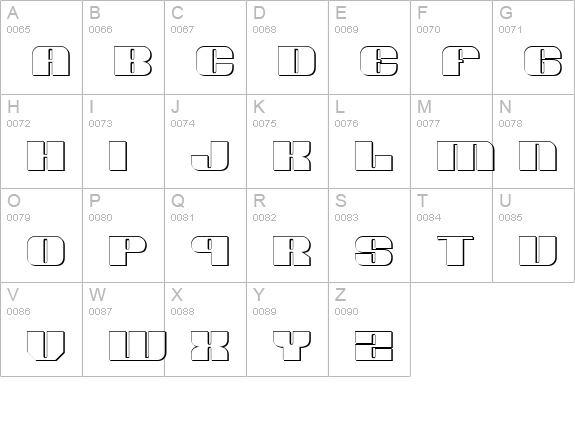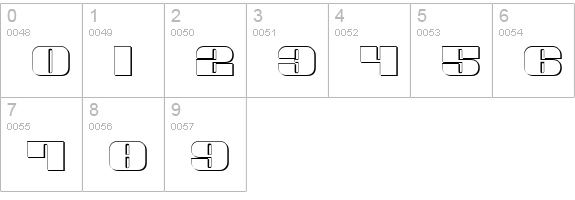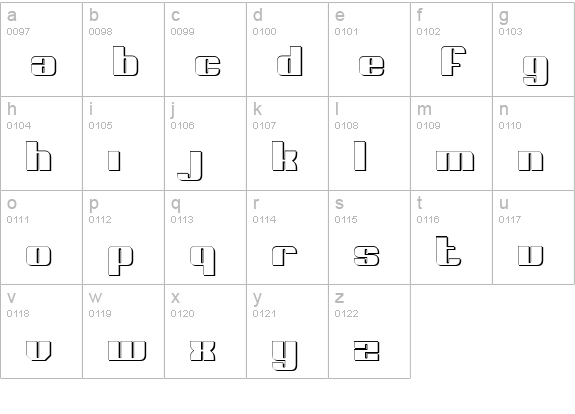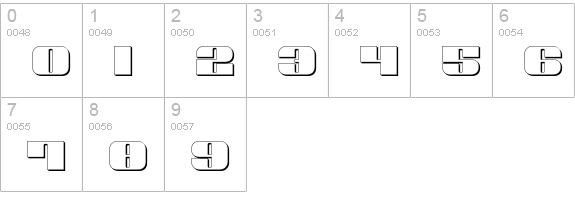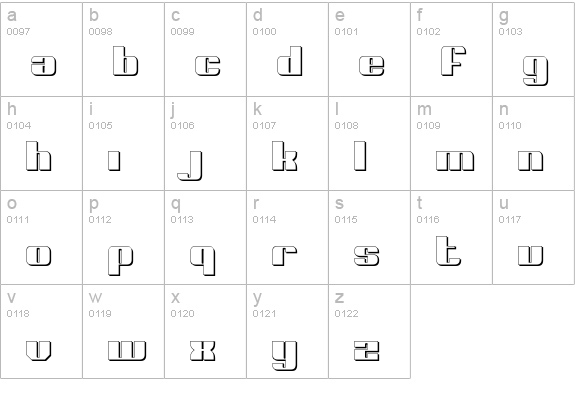
Nolo Contendre Shadow font is a captivating typeface that exudes a sense of mystery and sophistication. Its elegant shadow effect adds depth and dimension to any design, making it perfect for projects that require a touch of drama. The intricate details of this font give it a unique and eye-catching appeal, making it a standout choice for headlines, logos, and branding materials. What sets Nolo Contendre Shadow font apart is not only its striking appearance but also its versatility. Whether you're working on a vintage-inspired poster or a modern website design, this font will elevate your work to the next level. Its classic yet contemporary aesthetic makes it a timeless choice for a wide range of creative projects. Best of all, Nolo Contendre Shadow font is completely free to download at FontsMarket.com. This means you can start using it right away without any cost. So why wait? Add a touch of elegance and intrigue to your designs with Nolo Contendre Shadow font today.